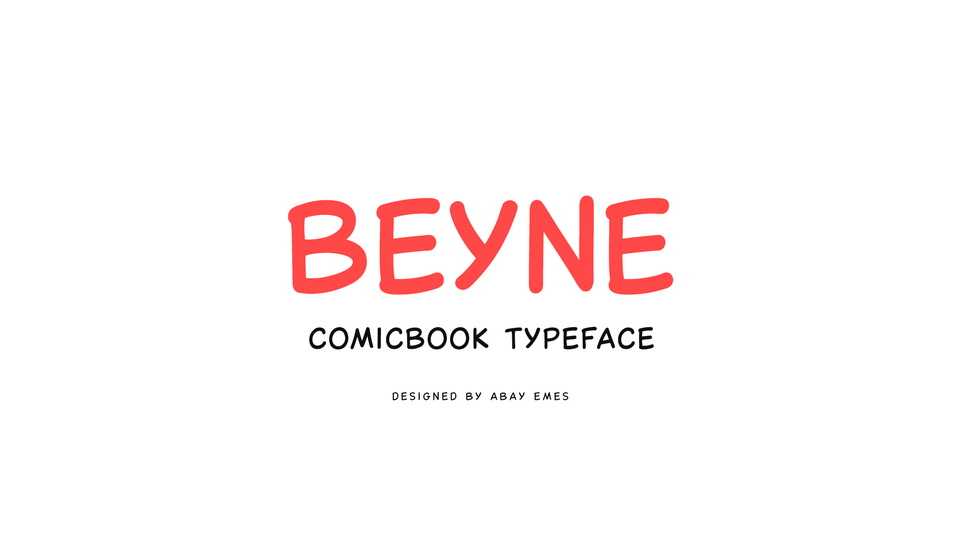
Download Beyne font, a dynamic hand-drawn typeface that leaps straight out of the pages of a comic book. Beyne font is crafted with bold strokes and playful details, capturing the essence of classic comic book lettering with a touch of whimsy and charm.
Designer: Abay Emes